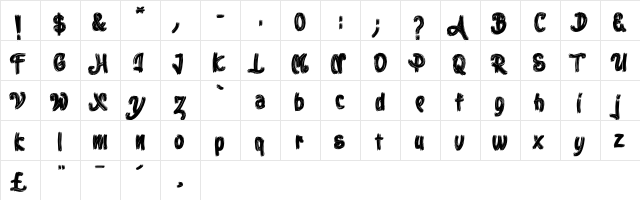
Stoica Brush Regular
Design Context for Stoica Brush Typeface
Stoica Brush flows with the natural rhythm of handwritten lettering, making it ideal for designs that call for warmth and personal expression.
Font Pairing: Combine Stoica Brush with a simple geometric sans for maximum contrast — the tension between flowing curves and clean structure is a classic typographic pairing.
Pro Tip: Use Stoica Brush for short runs of text — names, titles, or taglines. Extended body copy in script faces tires the eye quickly.